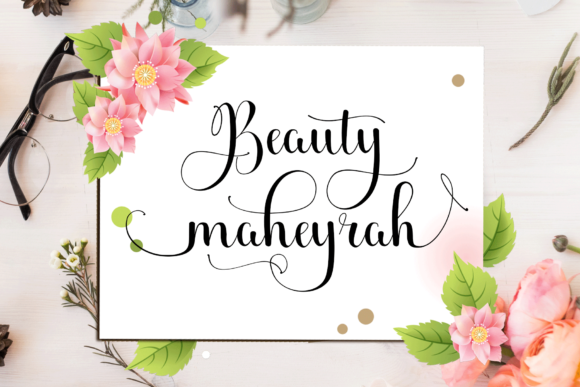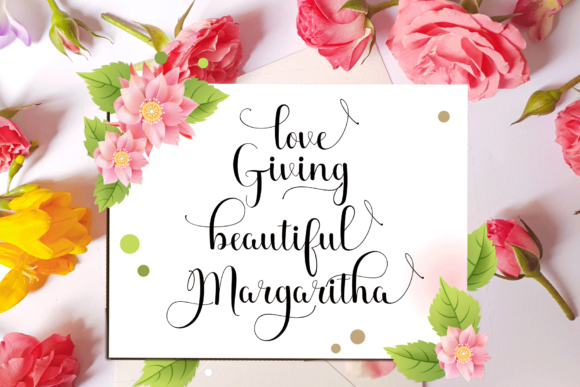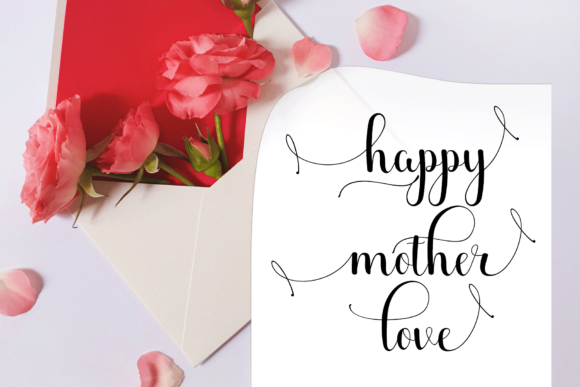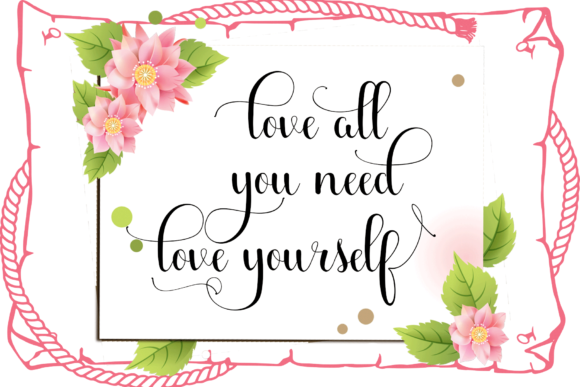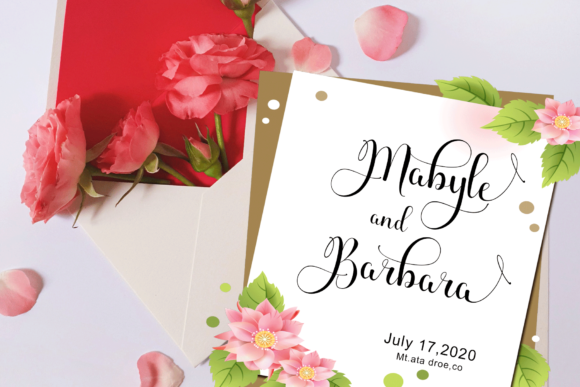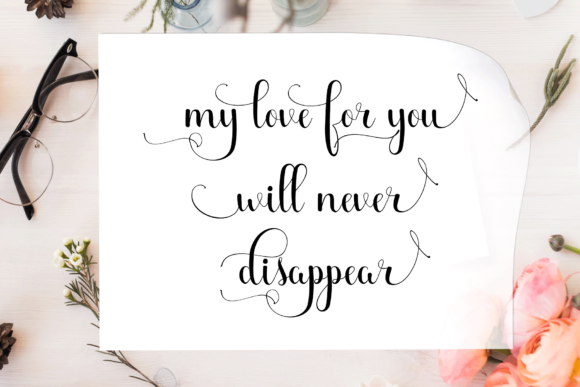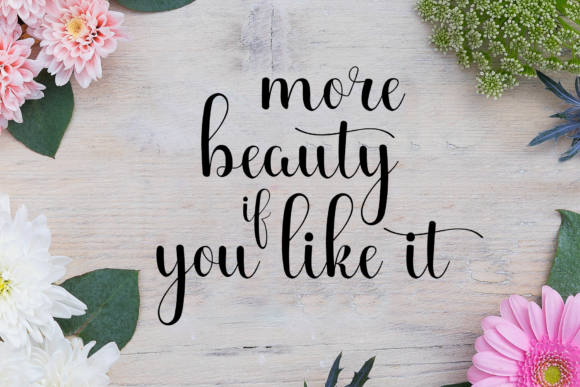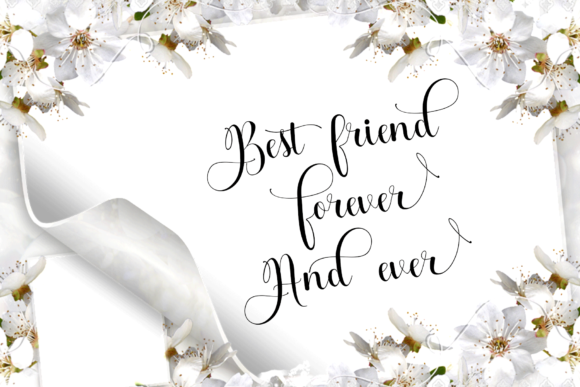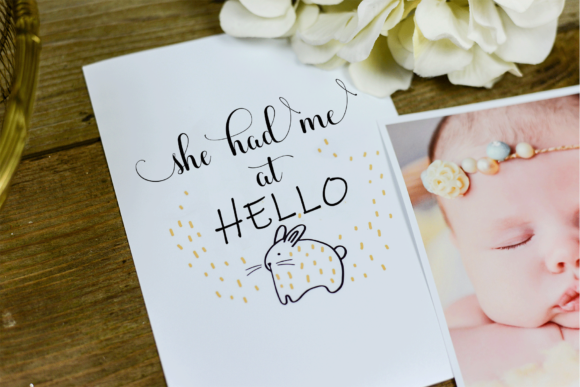
Beauty Maheyrah Font
About Beauty Maheyrah Font
Beauty Maheyrah is a classic calligraphy font that will easily add a charming feel to your next design idea. Fall in love with its romantic charm!